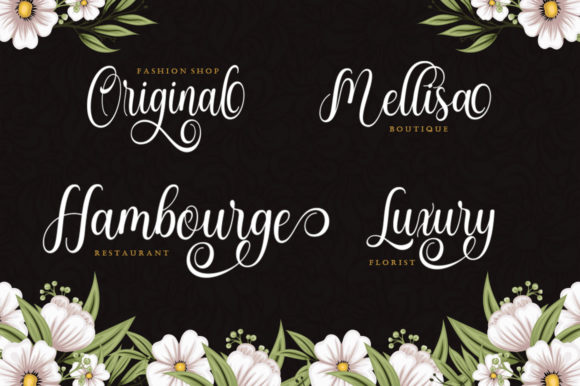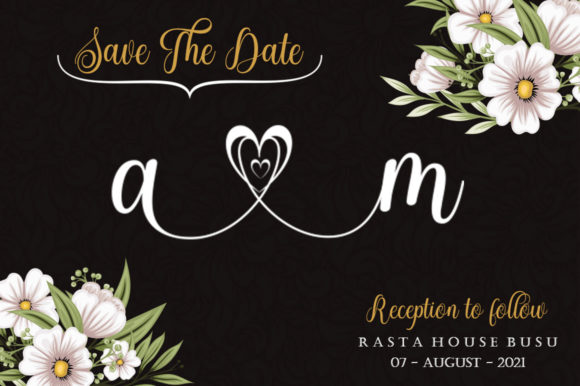
Brithania Script Font
db-ku.com - Script & Handwritten -- Brithania is a spectacular and eye-catching handwritten font. Use this gorgeous and unique font to bring any DIY project to life!